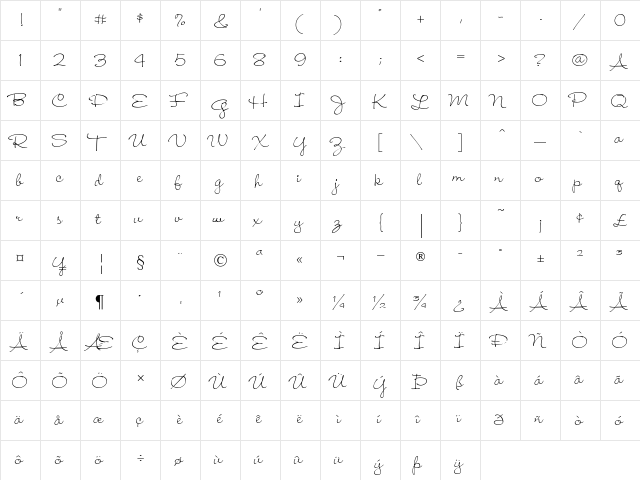
WendyLP-Light Light
Design Context for WendyLP-Light Typeface
WendyLP-Light is a composed and adaptable typeface that performs quietly and consistently across a wide range of design contexts. Its slender proportions lend an understated elegance to any composition.